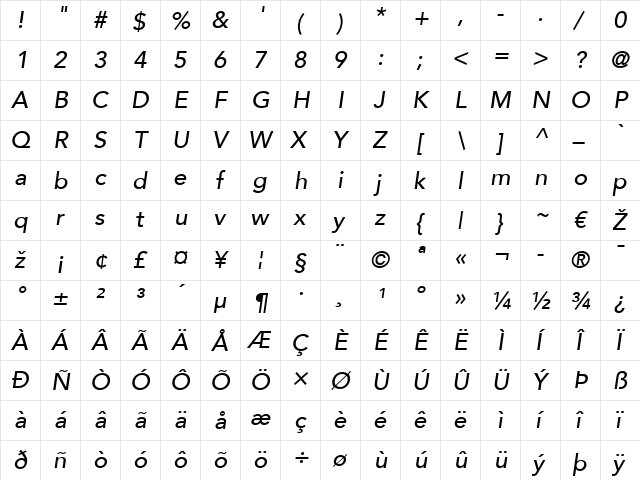
Avenir LT 65 Medium Italic Font Preview
Design Context for Avenir LT 65 Medium Typeface
Avenir LT 65 Medium takes a measured approach to typography — its balanced proportions and neutral character make it a reliable workhorse for both digital and print work. Its italic angle brings a sense of urgency and motion to the letterforms. Its slender proportions lend an understated elegance to any composition.
Pro Tip: Use Avenir LT 65 Medium for emphasis, pull quotes, and subheadings where its slanted energy can add rhythm to the layout.